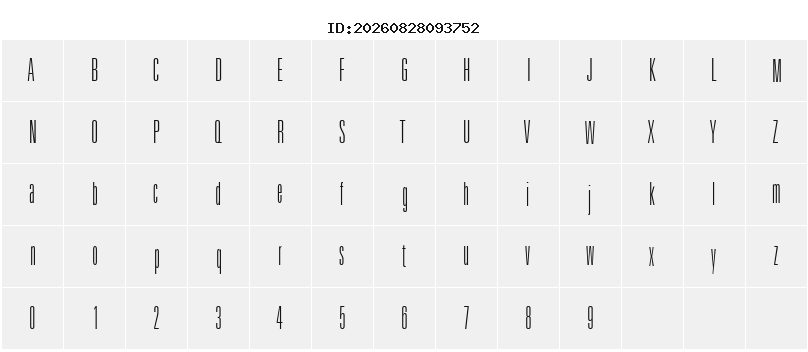
TrSah Panther Preview
• Font Name: TrSah Panther
• Full Font Name: TrSah Panther
About TrSah Panther.ttf
TrSah Panther.ttf is a modern, elegant sans-serif font designed for ultimate readability and visual harmony. Perfect for branding, headlines, web design, and print materials.